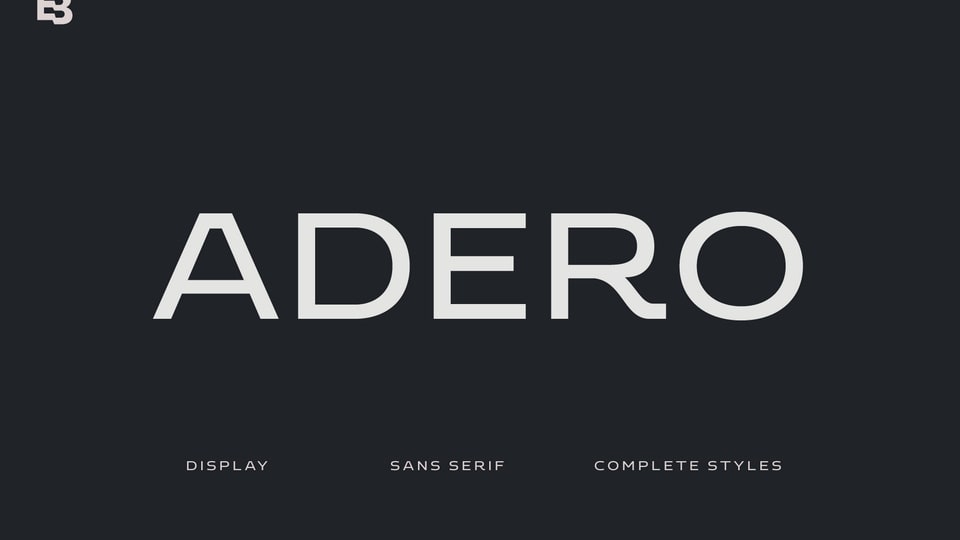
Download Adero font, a modern display typeface perfect for sci-fi themes and also broad design purposes. Emphasizing modern and futuristic characteristics, Adero crafted in wide proportion, large x-height with versatile letterform.